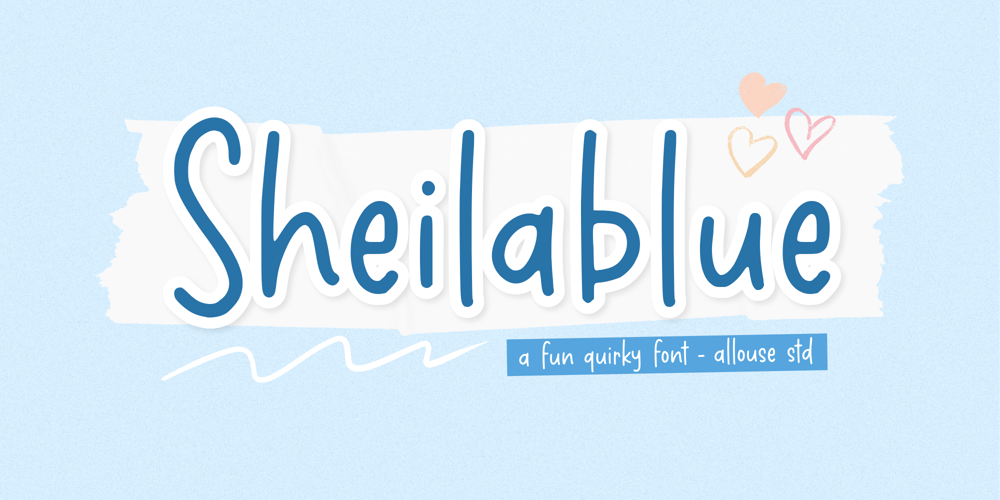
Sheilablue
Sheilablue font
Sheilablue Font Family was designed by Fachrizal Yusuf and published by Allouse Studio. Sheilablue contains 1 styles and family package options. Proudly Presenting, Sheilablue A Fun Quirky FontSheilablue is perfect for any titles, logo, product packaging, branding project, megazine, social media, wedding, or just used to express words above the background.Sheilablue also come with Multi-Lingual Support.Enjoy the font, feel free to comment or feedback, send me PM or email. Thank You!